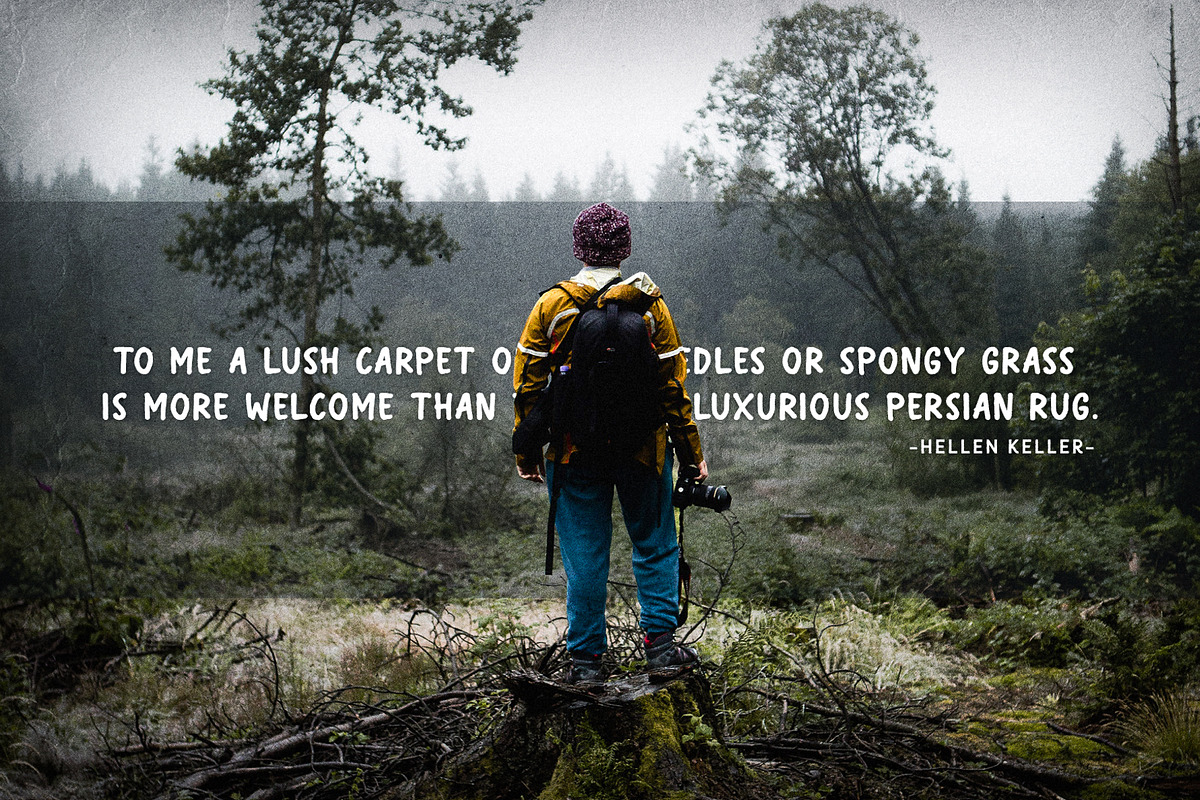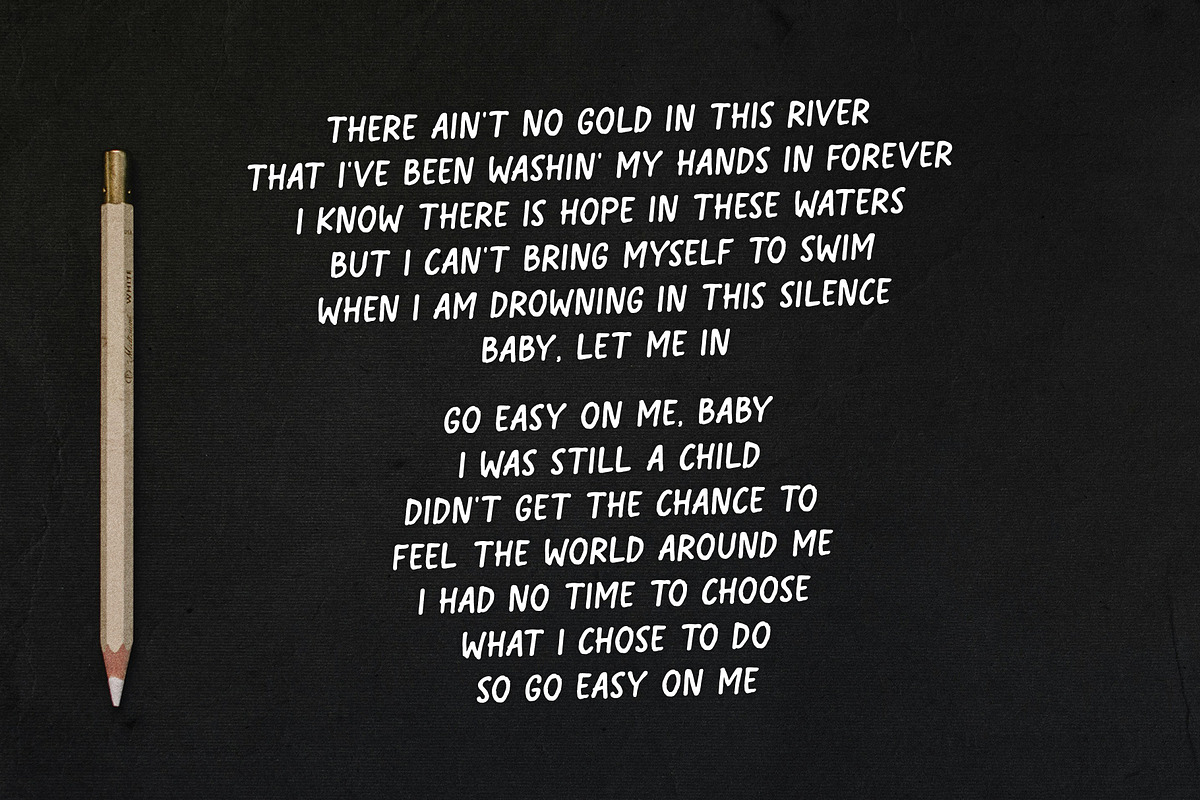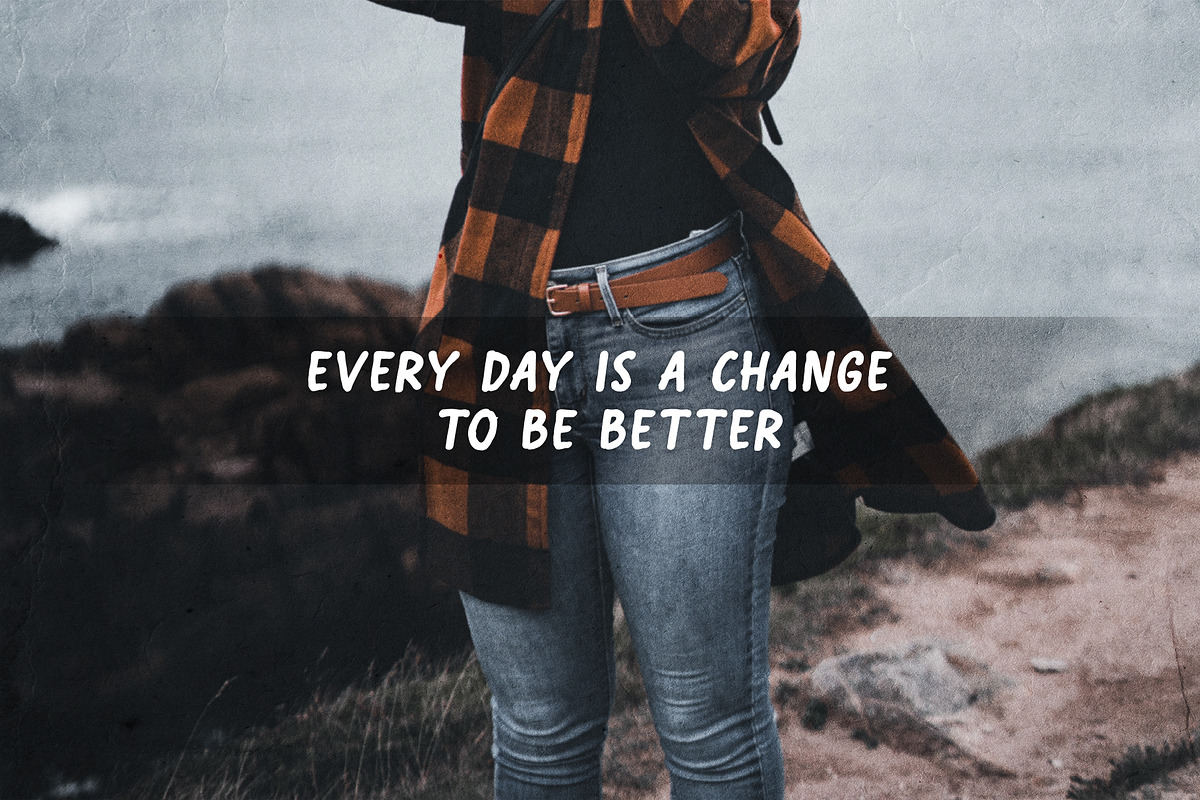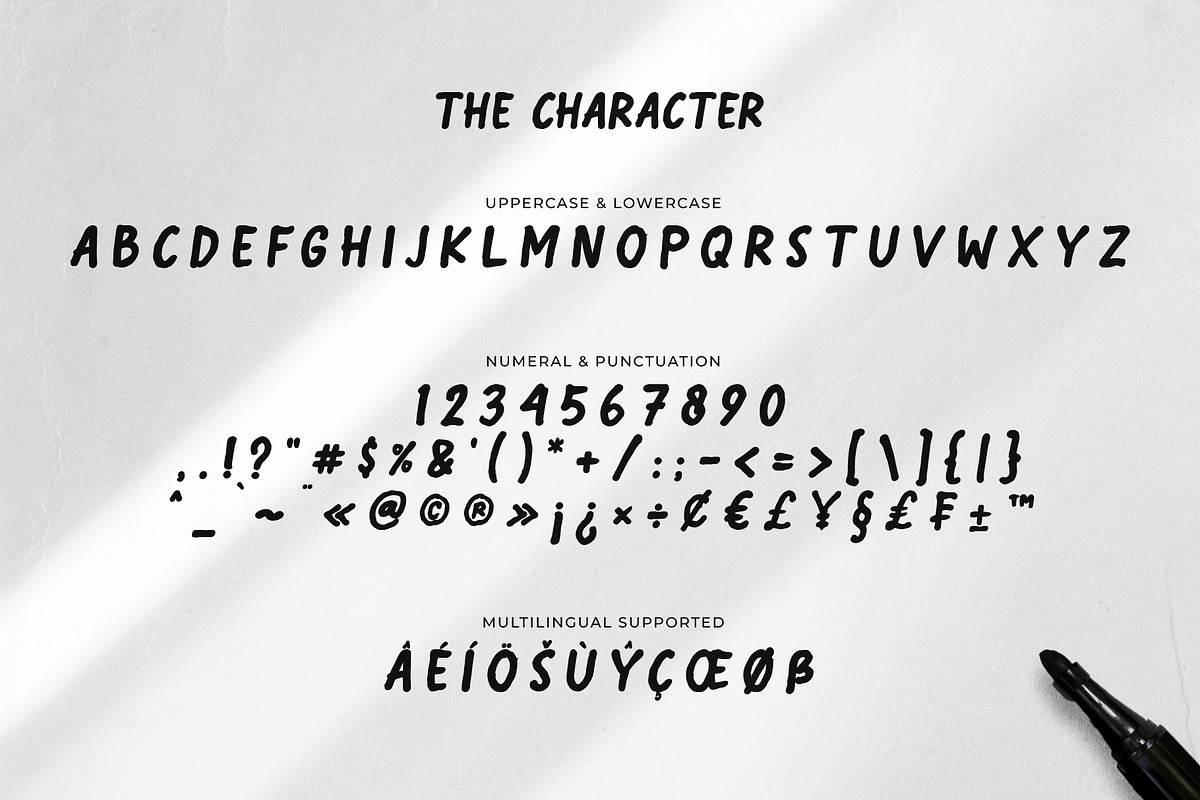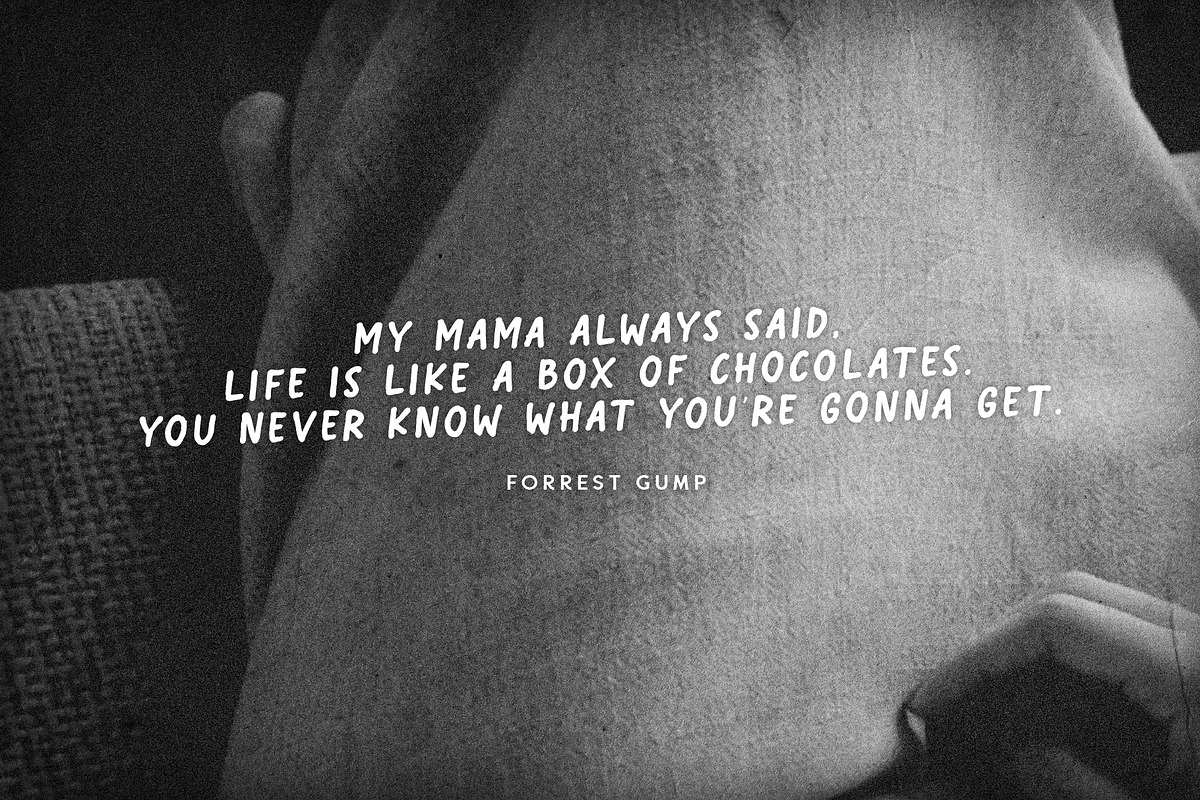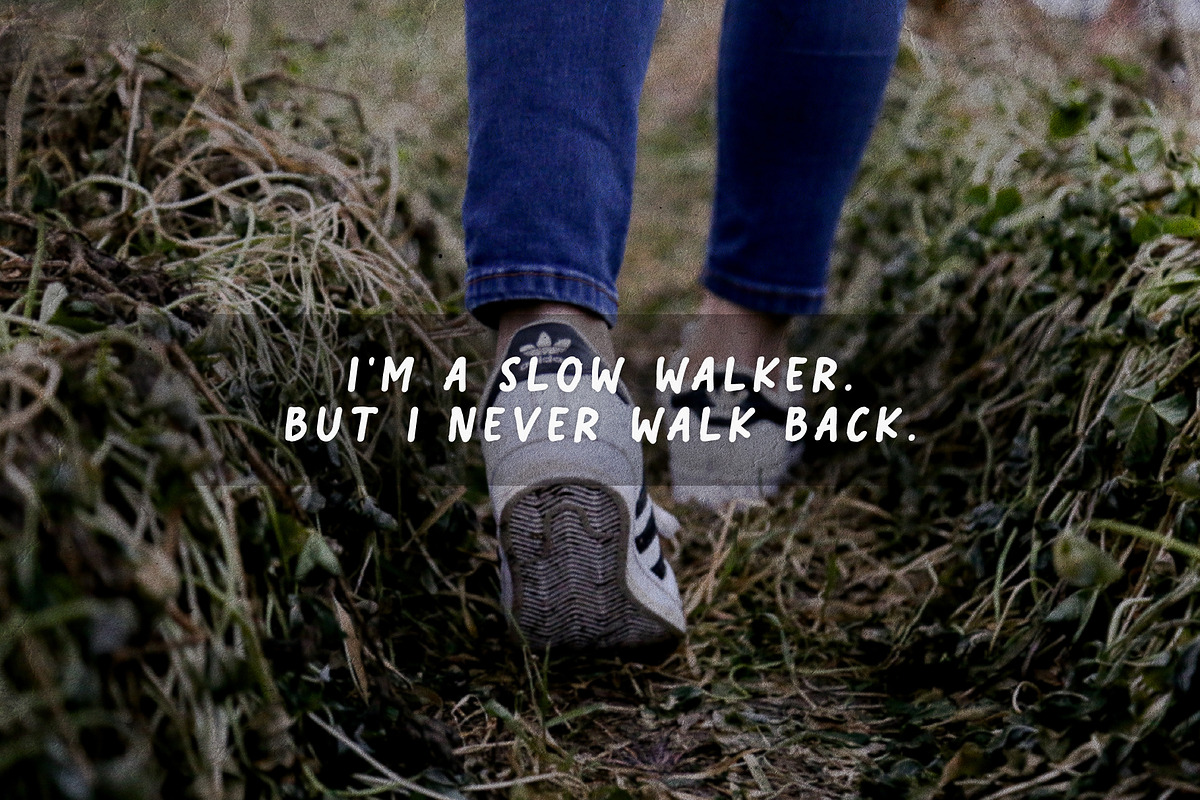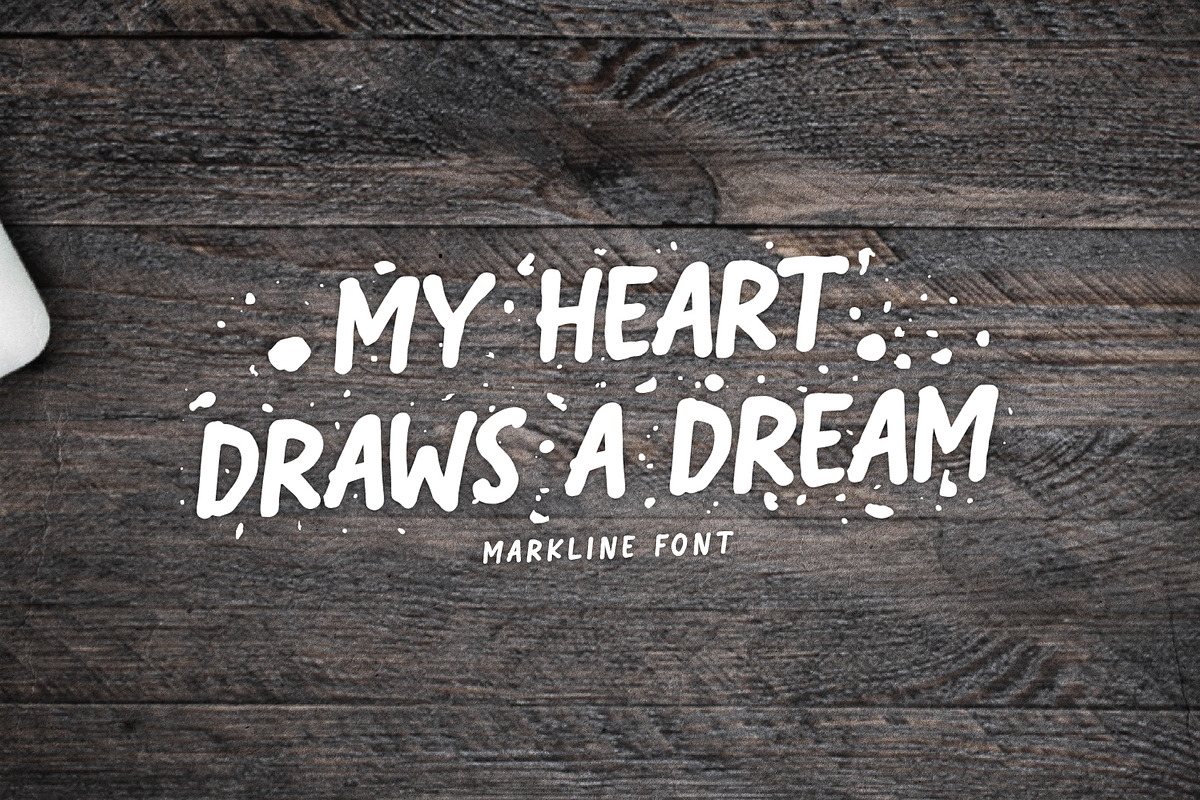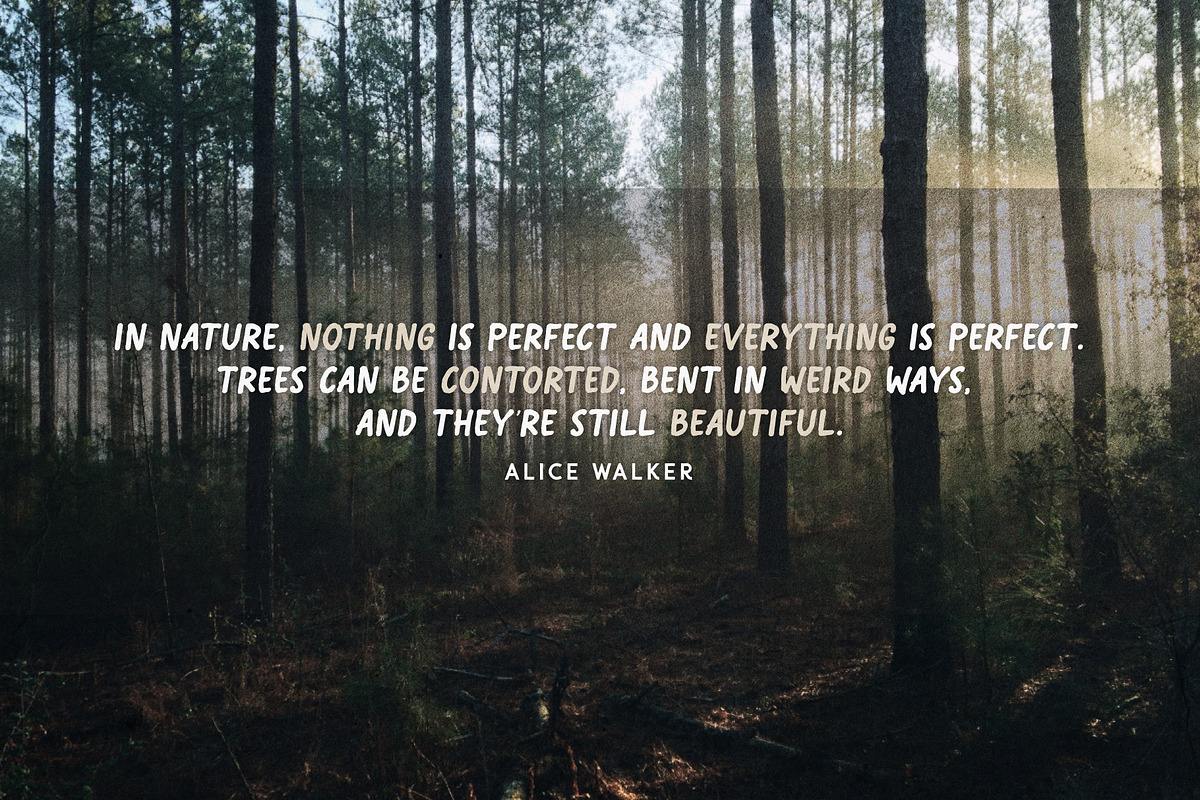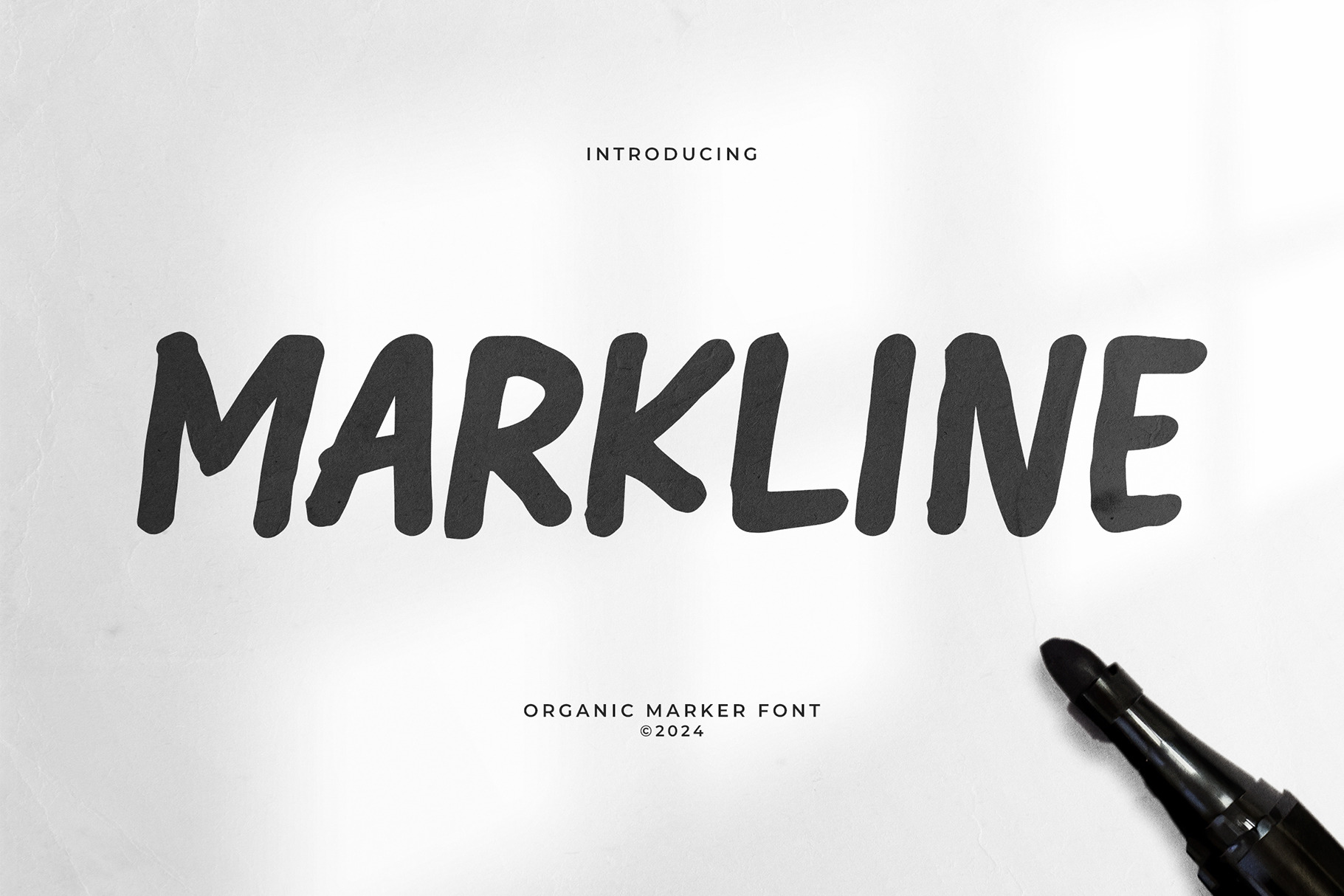
Markline | Organic Marker Font
Markline is organic handwritten fonts. This font is very unique and natural because it is made from the designer's actual handwriting. This font will make your designs look natural, authentic and amazing. It offers support for all English characters, some characters in multiple languages and standard punctuation marks are included. Markline is designed specifically for logotype design, typhography, branding, advertising, clothing, and manymore.